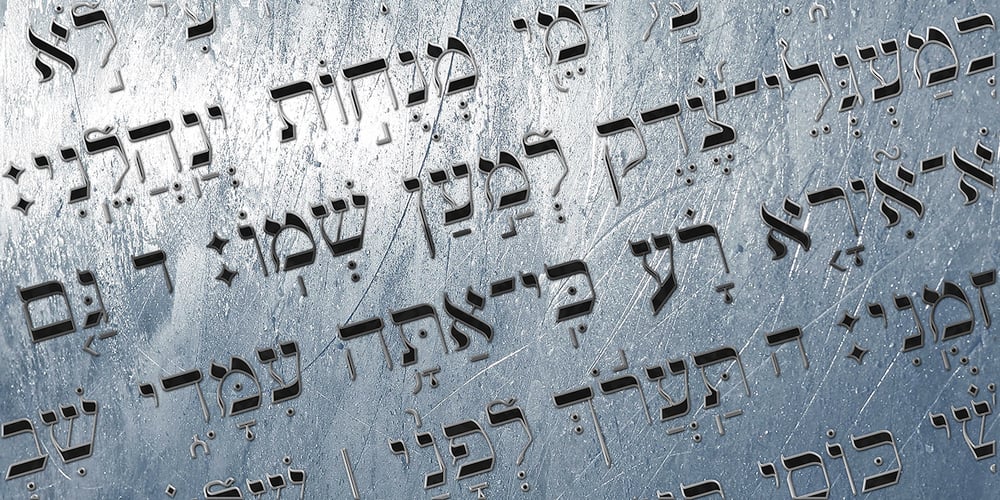
Magalith Tanach Pro Font Family was designed by Sami Artur Mandelbaum and published by Samtype. Magalith Tanach Pro contains 4 styles and family package options. This is a font to build an hebrew Bible (Tanach) or any Hebrew prayer book.Magalith Tanach Pro has all unicode hebrew marks and others like, ShevaNa, Dagesh Chazak, Qamats Katan and Cholam Chaser.You can even hide marks You don’t want to use.This font has a complex and exclusive programmation of opentype features.Probably is the first hebrew font with this opentype feature programmation level in MyFonts site.Including in Tanach Pro family are 2 captions fonts to use in footnotes, explanations and small text sizes .